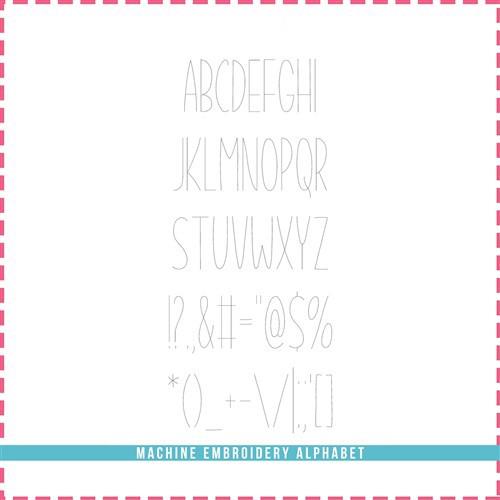
Maya Kreations is happy to present Simone Embroidery machine embroidery font which has Clean and tall letter style machine embroidery font suitable for a variety of projects, such as home decor or apparel. Available in PES, DST & 6 additional formats for diverse stitching needs. included. If you would like to view more embroidery fonts and alphabets please search our embroidery fonts page.